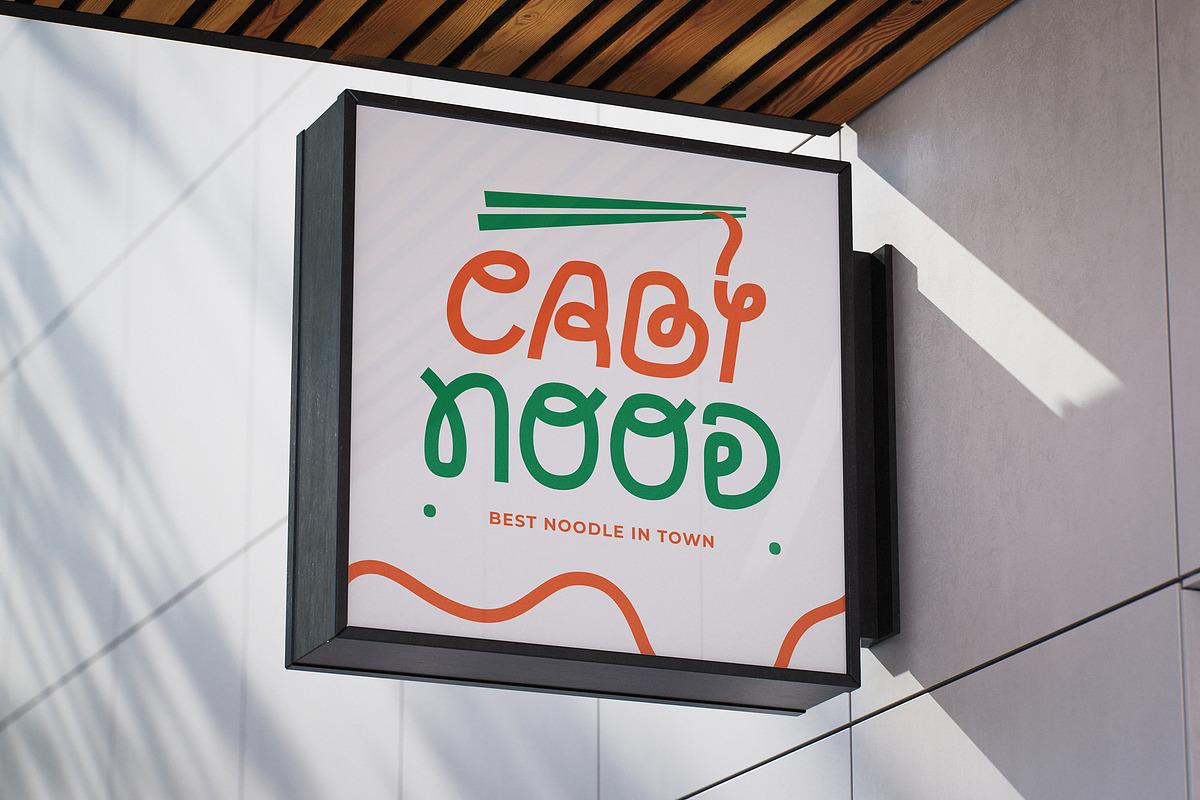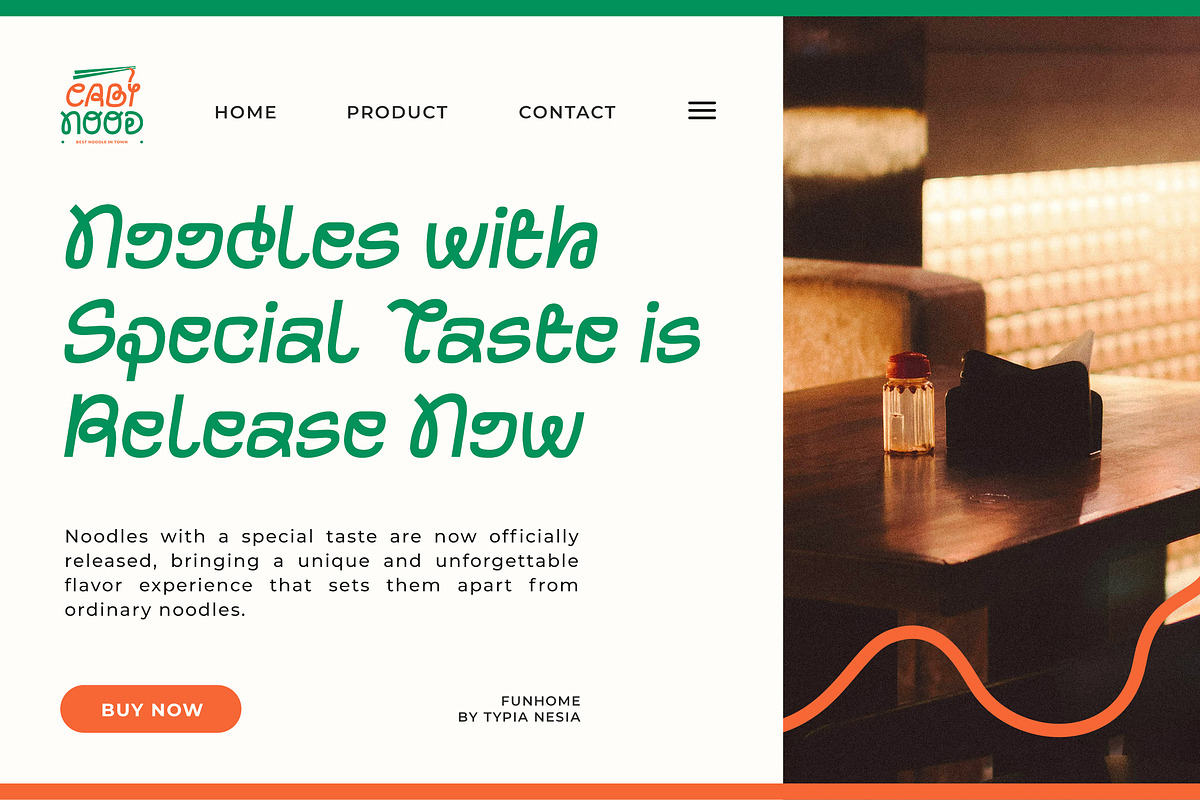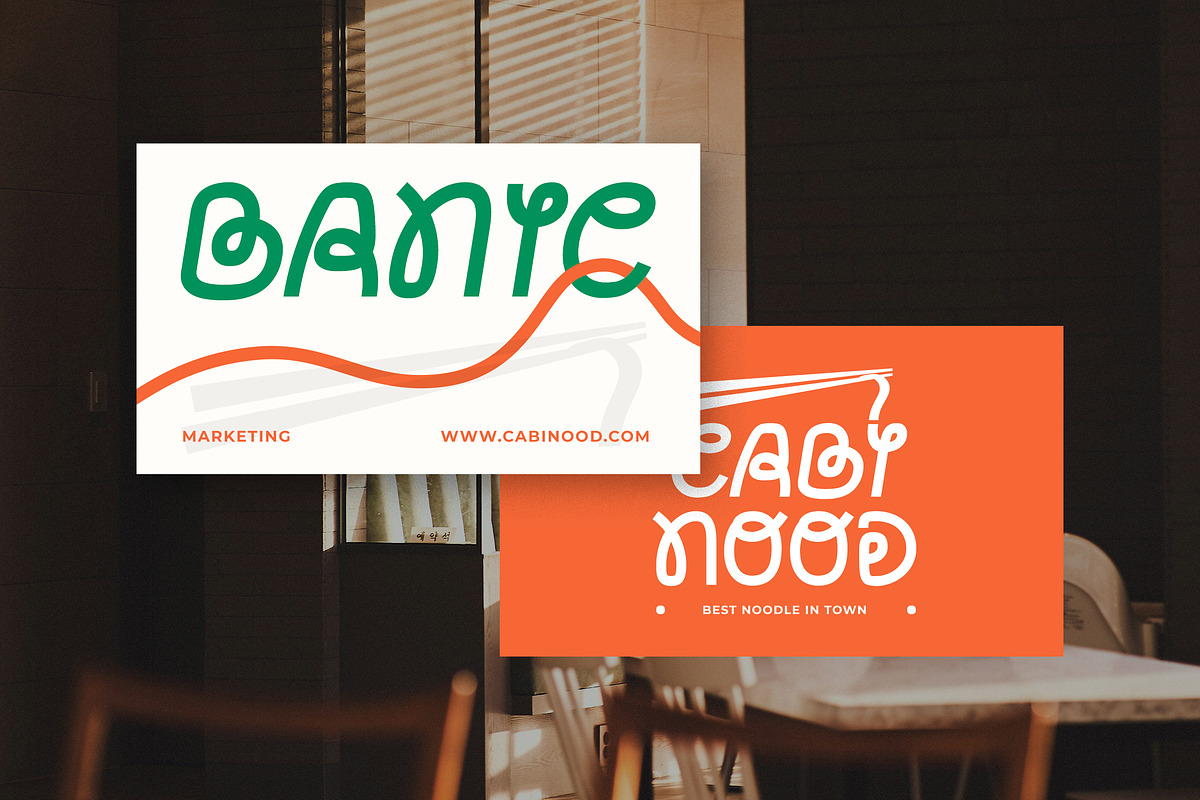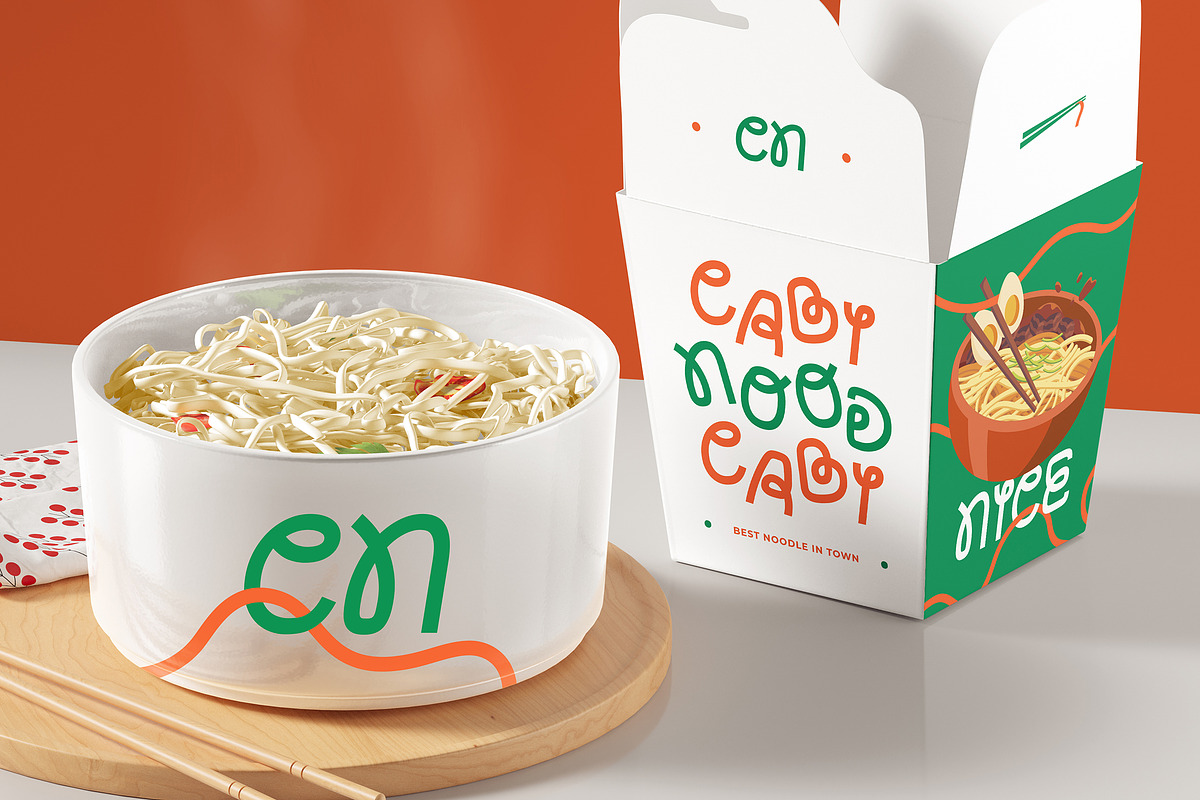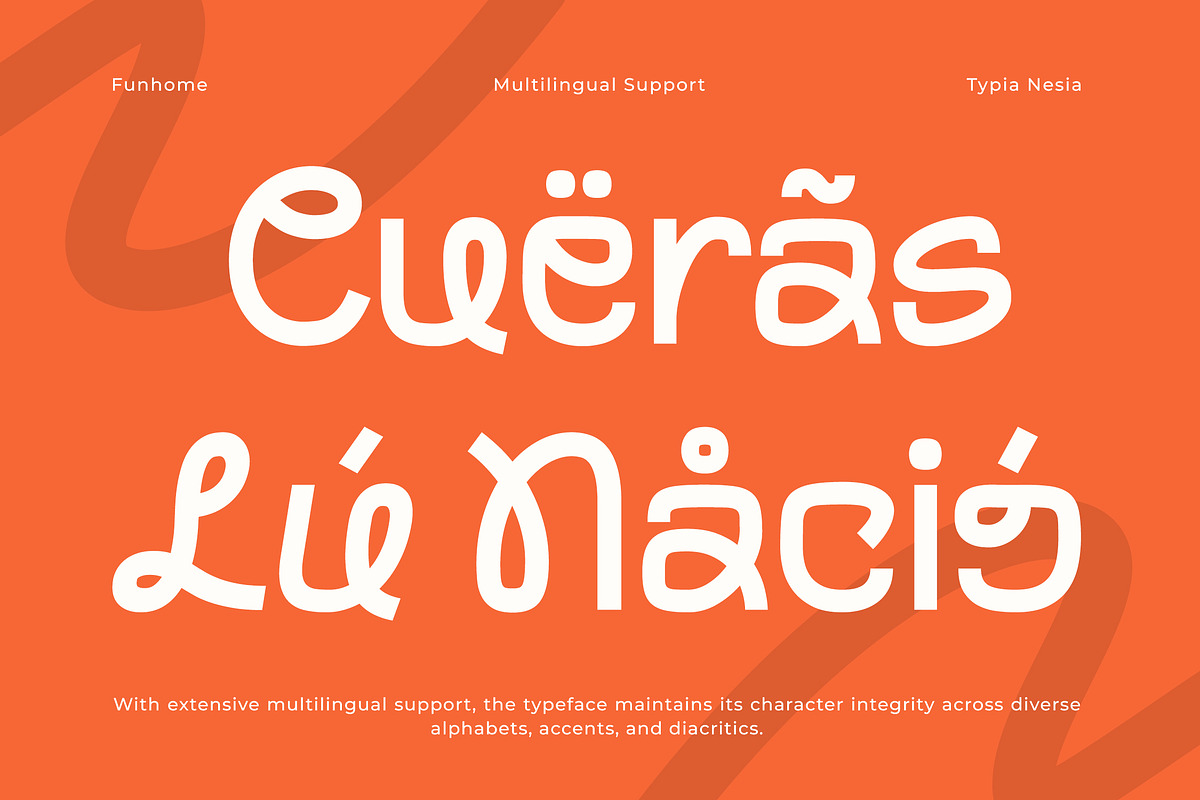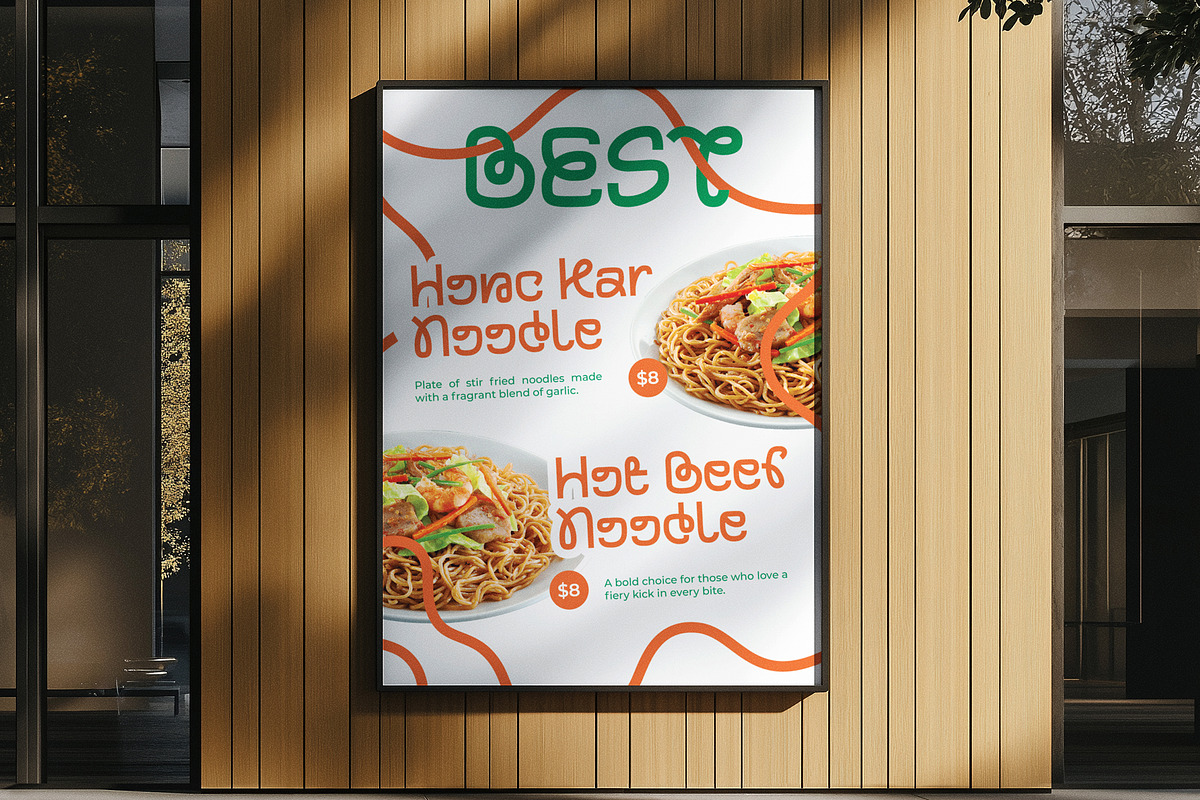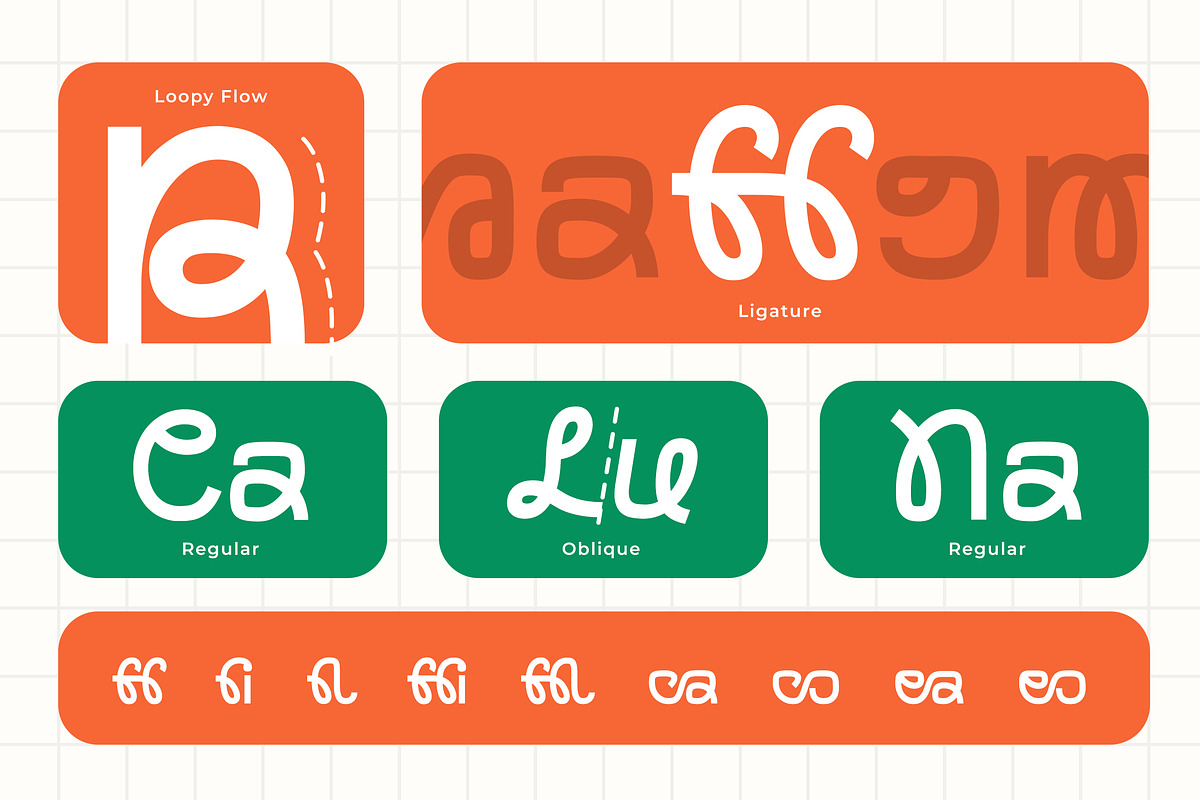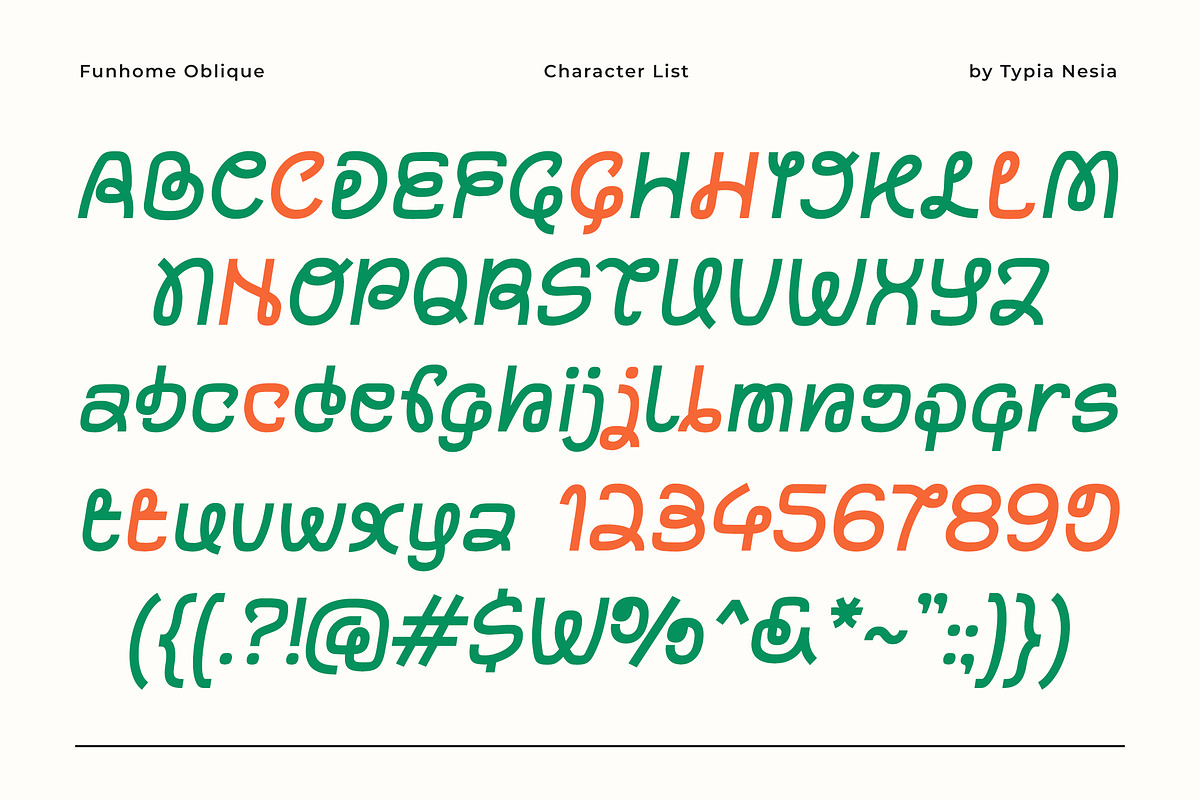
Funhome - Modern Loopy Logo Sans
Funhome - Modern Loopy Logo Sans Font - Playful & Fun Creative Display Font
Funhome is a modern loopy sans serif font designed to bring a playful, fun, and friendly personality to your designs. With its rounded strokes, Funhome delivers a cheerful visual tone while staying clean and readable. It's perfect for logo design, packaging, food branding, cafes, kids projects, books, posters, social media content, and any projects that want to feel approachable, cute, and energetic. Equipped with ligatures, alternates, and oblique styles, this font allows designers to create expressive and dynamic typography that stands out across digital and print media.